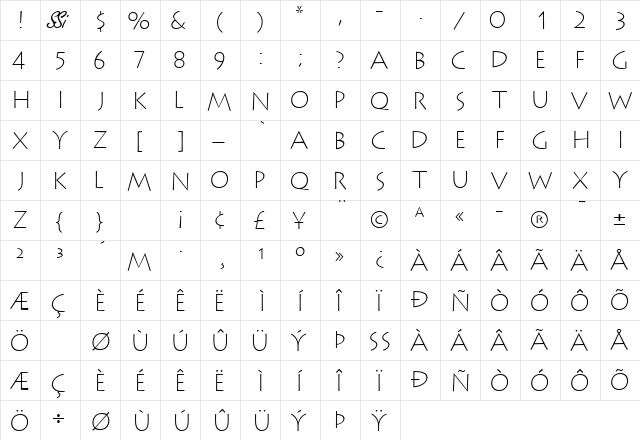
AustereLightCapsSSK Regular Font Preview
AustereLightCapsSSK Regular
AustereLightCapsSSK Regular Font Details
Design Context for AustereLightCapsSSK Typeface
AustereLightCapsSSK is a composed and adaptable typeface that performs quietly and consistently across a wide range of design contexts. Its slender proportions lend an understated elegance to any composition.